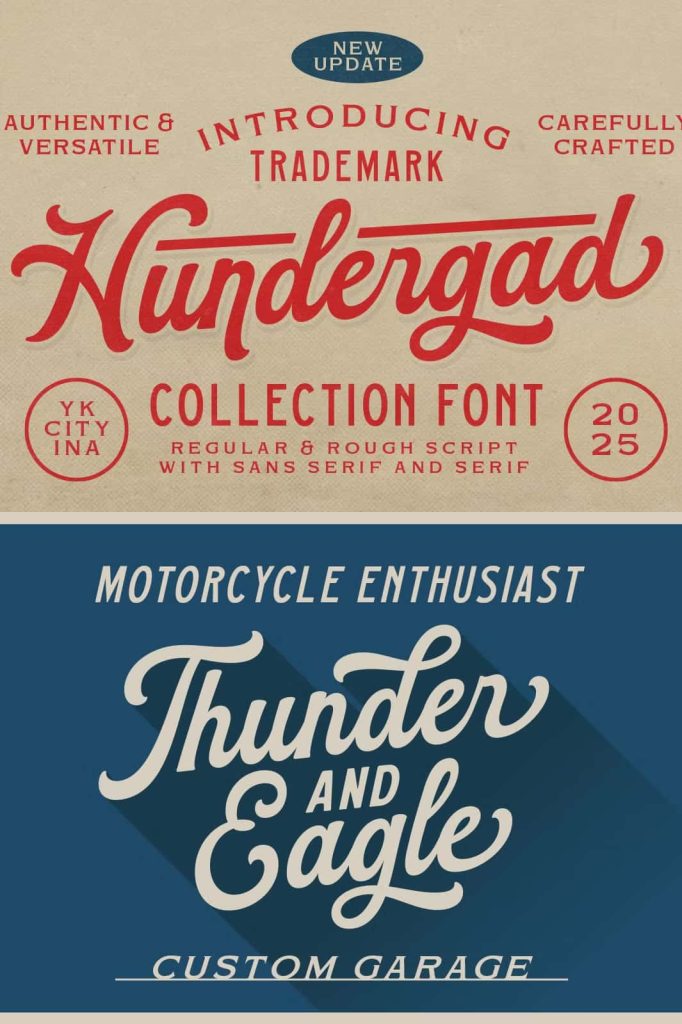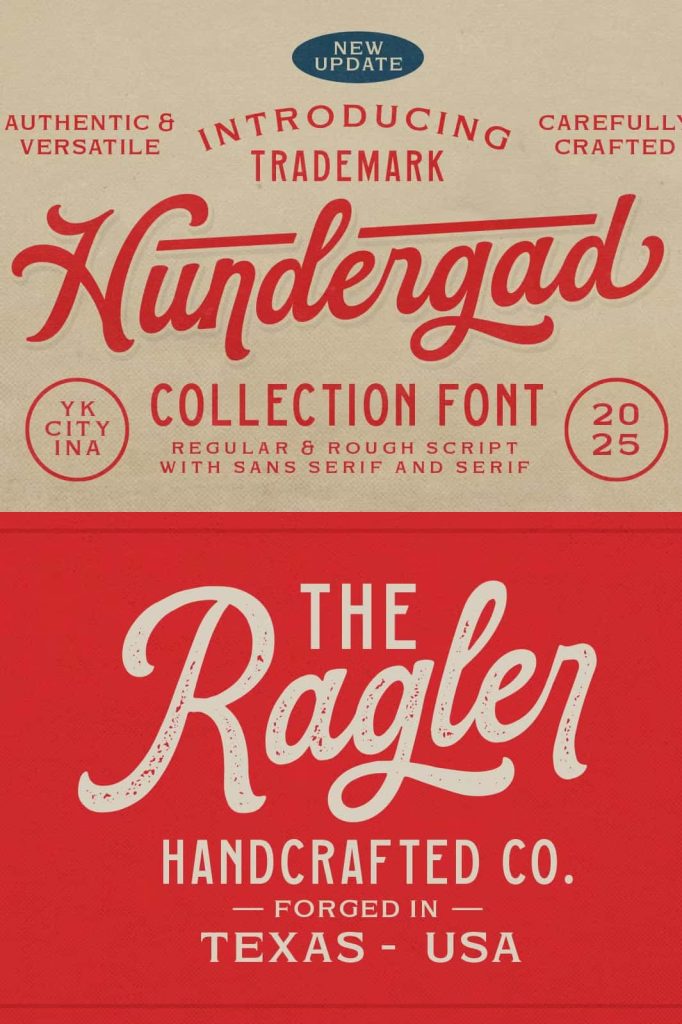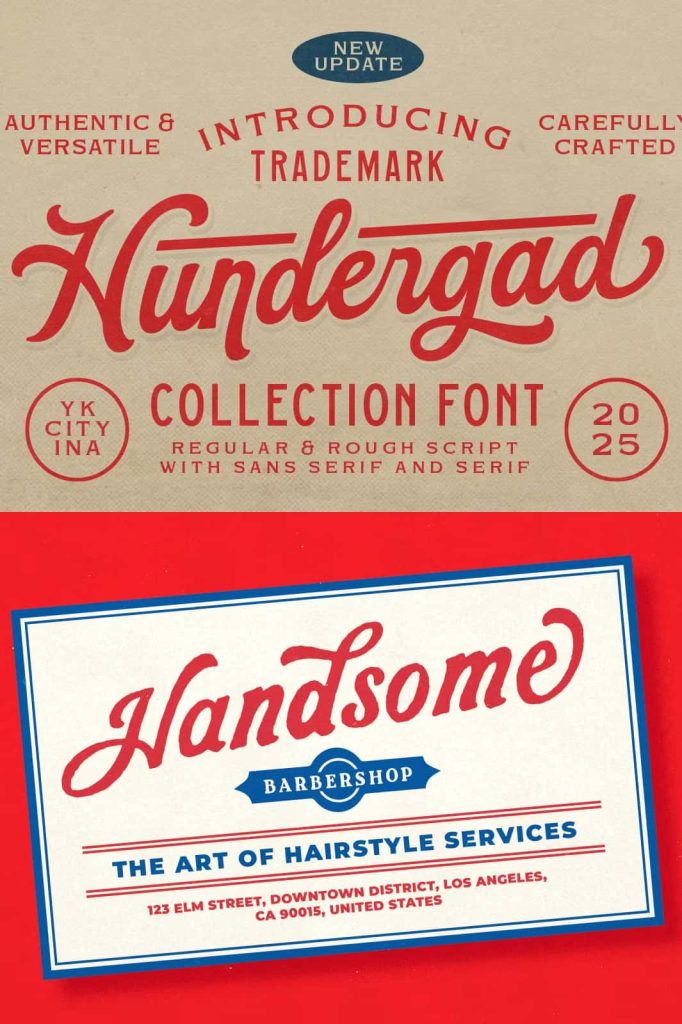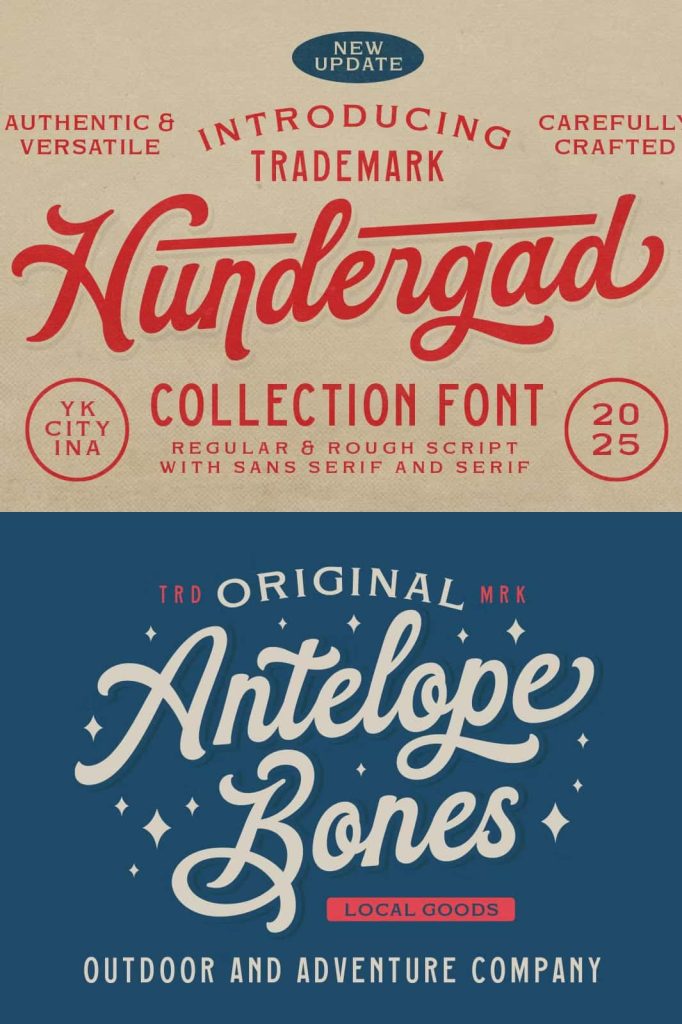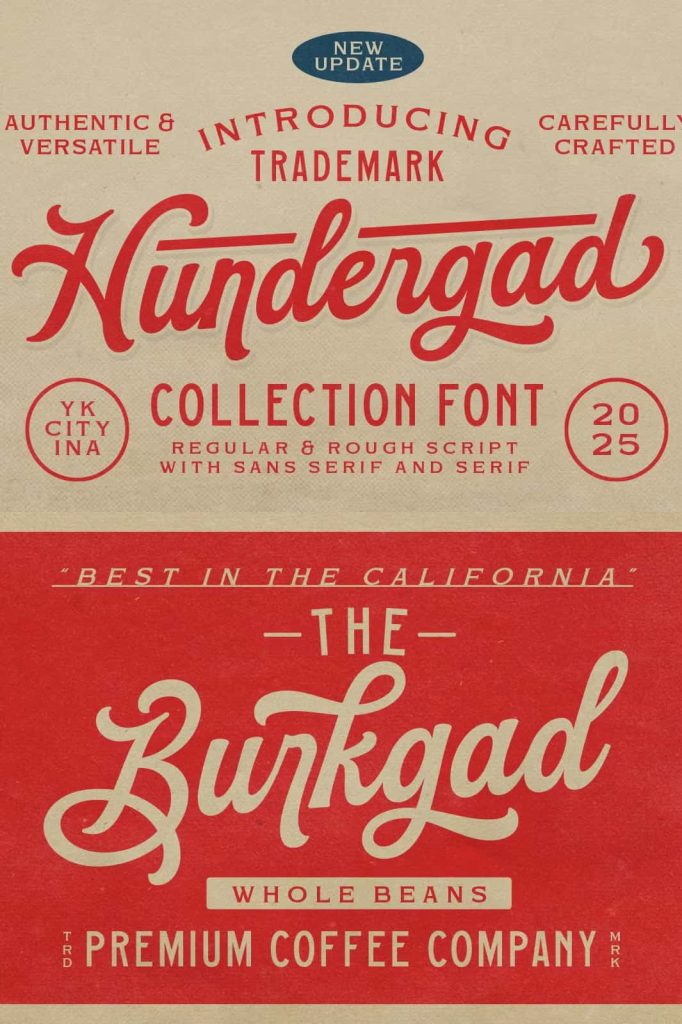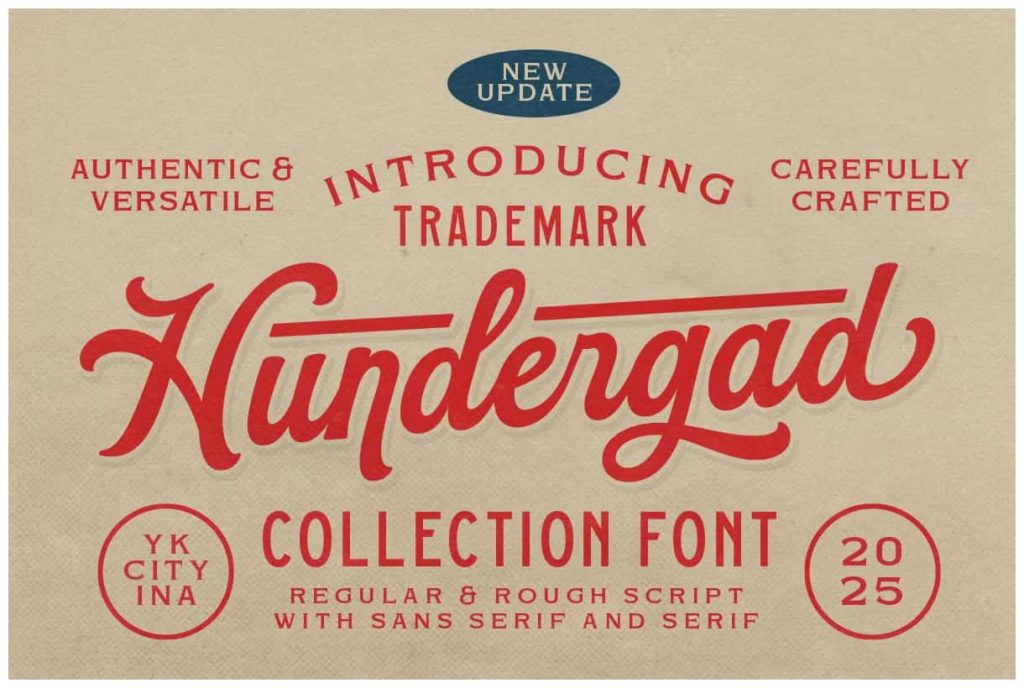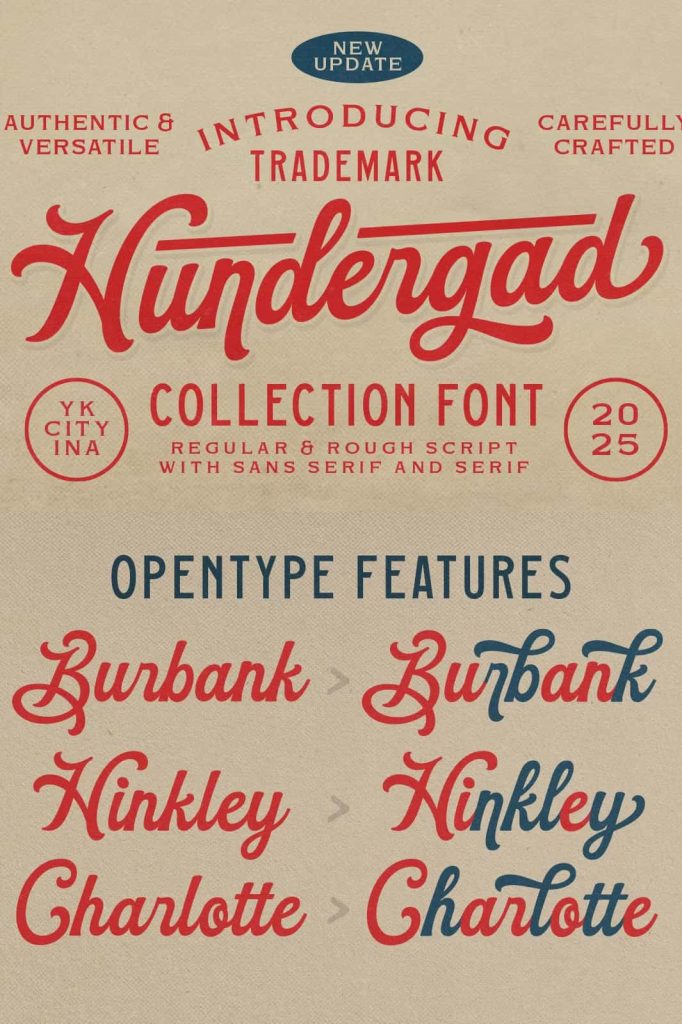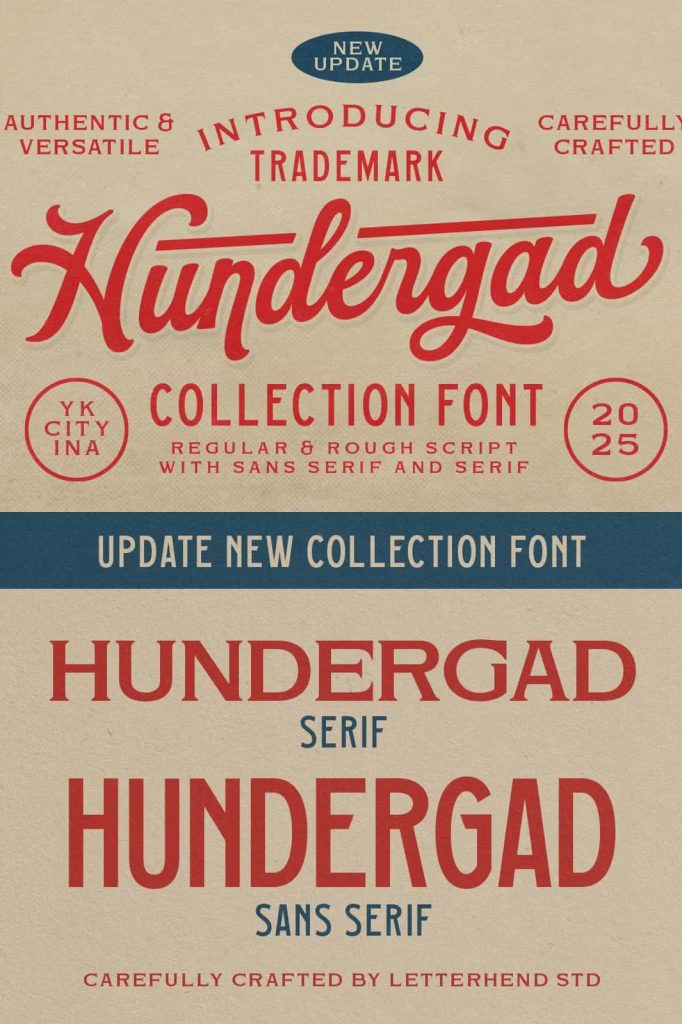
Hundergad Font – A Complete Vintage-Inspired Typeface Collection
Hundergad Font is a beautifully crafted, vintage-inspired type collection designed to bring timeless authenticity and versatility to your creative projects. Originally launched as a single bold script, Hundergad has now evolved into a full family of complementary styles — including a handcrafted script, sans-serif, and serif typeface. Each font in the collection carries the same handcrafted charm, allowing designers to build cohesive and visually stunning compositions across logos, packaging, invitations, apparel, and beyond. Whether you’re working on branding or editorial design, Hundergad adds classic personality and depth to every layout.
A Revival of Classic Handcrafted Design
The Hundergad Font Collection captures the artistry and craftsmanship of vintage typography while offering modern usability and balance. Inspired by early 20th-century advertising, hand-painted signs, and traditional letterforms, Hundergad reflects a time when every curve and stroke was made with care. Its hand-drawn details bring a sense of warmth and authenticity, giving your designs an organic and personal touch that digital precision alone can’t replicate.
Every font within Hundergad has been meticulously designed to complement one another. The bold script style maintains the energy and flow of classic hand lettering, while the sans and serif versions add structure and versatility. Together, they create a powerful typographic toolkit perfect for everything from elegant branding to bold vintage layouts. The collection provides balance — expressive yet controlled, nostalgic yet fresh.
Perfect for Logos, Packaging, and Vintage-Inspired Branding
Hundergad Font was created for designers who want to evoke history, character, and craftsmanship in their work. Its bold script font delivers striking headlines with flowing, energetic strokes that command attention. The matching sans and serif styles bring balance and legibility, making the collection perfect for brand identity systems that require cohesion and flexibility. Whether you’re designing logos, labels, or packaging, Hundergad allows you to mix and match styles to achieve the perfect vintage aesthetic.
The handcrafted essence of the font shines in wedding invitations, apparel designs, signage, and editorial layouts. Its organic texture and hand-lettered rhythm create visual interest while maintaining professional polish. Hundergad’s classic style works beautifully in rustic, artisanal, and heritage-inspired brands, helping to establish authenticity and emotional connection with the audience.
Crafted for Versatility and Authentic Expression
Unlike many vintage fonts that focus on style over function, Hundergad balances personality with performance. Each letterform is designed to maintain readability and consistent rhythm across applications. The combination of script, sans, and serif gives designers the freedom to explore endless creative possibilities — pairing them for contrast, hierarchy, and mood. The result is a type collection that feels cohesive, flexible, and genuinely handcrafted.
Its natural imperfections and carefully refined shapes make it ideal for those who appreciate craftsmanship and authenticity in design. Hundergad allows you to move seamlessly from bold statement pieces to subtle, refined layouts without losing its distinctive personality. The collection’s diverse range of weights and styles makes it suitable for both display headlines and supporting text.
Key Features of Hundergad Font Collection
- Complete font family: Includes script, sans, and serif styles for maximum versatility.
- Vintage-inspired design: Influenced by traditional sign painting and early 20th-century lettering.
- Handcrafted character: Organic shapes and textures evoke an authentic handmade feel.
- Perfect for branding: Ideal for logos, packaging, apparel, and label design.
- Consistent flow: Balanced letterforms ensure readability across all applications.
- Elegant yet bold: Combines nostalgic charm with modern usability.
Design with Character and Timeless Style
With Hundergad Font, you can infuse every project with the warmth and detail of handcrafted artistry. Its collection of complementary fonts makes it an invaluable tool for designers who want to establish a visual identity rooted in authenticity and heritage. The combination of script, sans, and serif gives you the creative freedom to experiment with contrast and hierarchy while maintaining stylistic unity across your designs.
Whether you’re crafting branding for a vintage-inspired product, designing apparel with a nostalgic edge, or creating packaging that demands attention, Hundergad delivers exceptional results. Its strong presence and smooth flow ensure your typography feels deliberate, expressive, and memorable. With Hundergad, every word feels hand-built — designed to resonate emotionally and visually.
Hundergad Font is more than just a typeface; it’s a complete design toolkit rooted in vintage charm and modern precision. Updated from a single script to a full font collection, it now includes bold script, sans, and serif styles — giving you the freedom to craft cohesive, expressive, and professional designs. From logos to labels and apparel to invitations, Hundergad brings handcrafted authenticity and elegance to any creative project.
Embrace timeless design and creative flexibility with Hundergad Font Collection — a tribute to classic craftsmanship and contemporary design excellence.